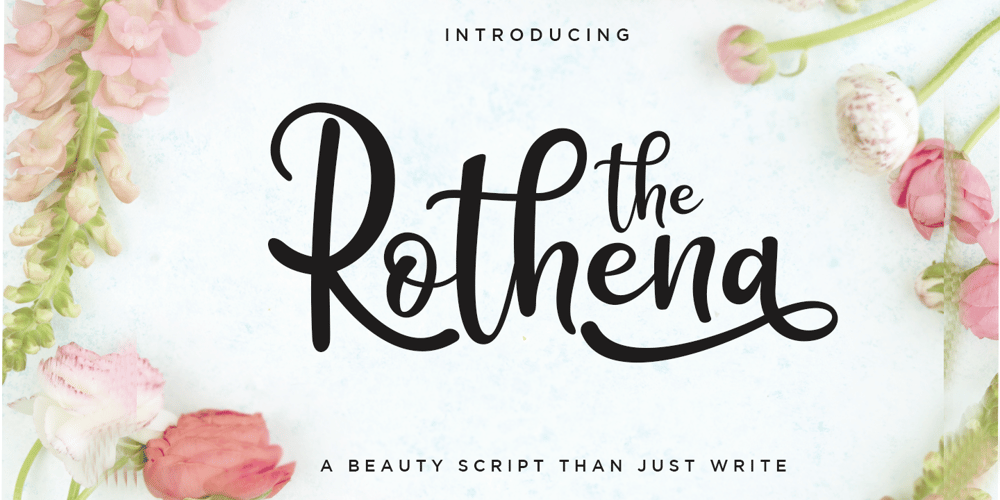
Rothena
Rothena font
Rothena Font Family was designed by Sarwo Edhi Prayitno and published by Haksen. Rothena contains 1 styles and family package options. Hand-lettered with style, Rothena Script is a must have for all your design needs. Perfect for greeting cards, branding, stationery design, social media, packaging, magazine layouts, prints and more!Utilize all caps for a completely alternate style, or mix and match lowercase script + all caps for creative designs.Rothena Script has a variety of unique, coded features to create compelling, handmade outcomes: 4 stylistic alternates, 5 initial characters, 4 end characters, 1 discretionary ligature and 25 standard ligatures.Multilingual support is included for Western European languages. PUA Encoded. OTF is included for the full, Rothena Script font. Happy Designing! This is the personal license font that can be used for all personal needs. If you want to use this font on items you are going to sell or on anything promoting your business, please purchase the extended license version.